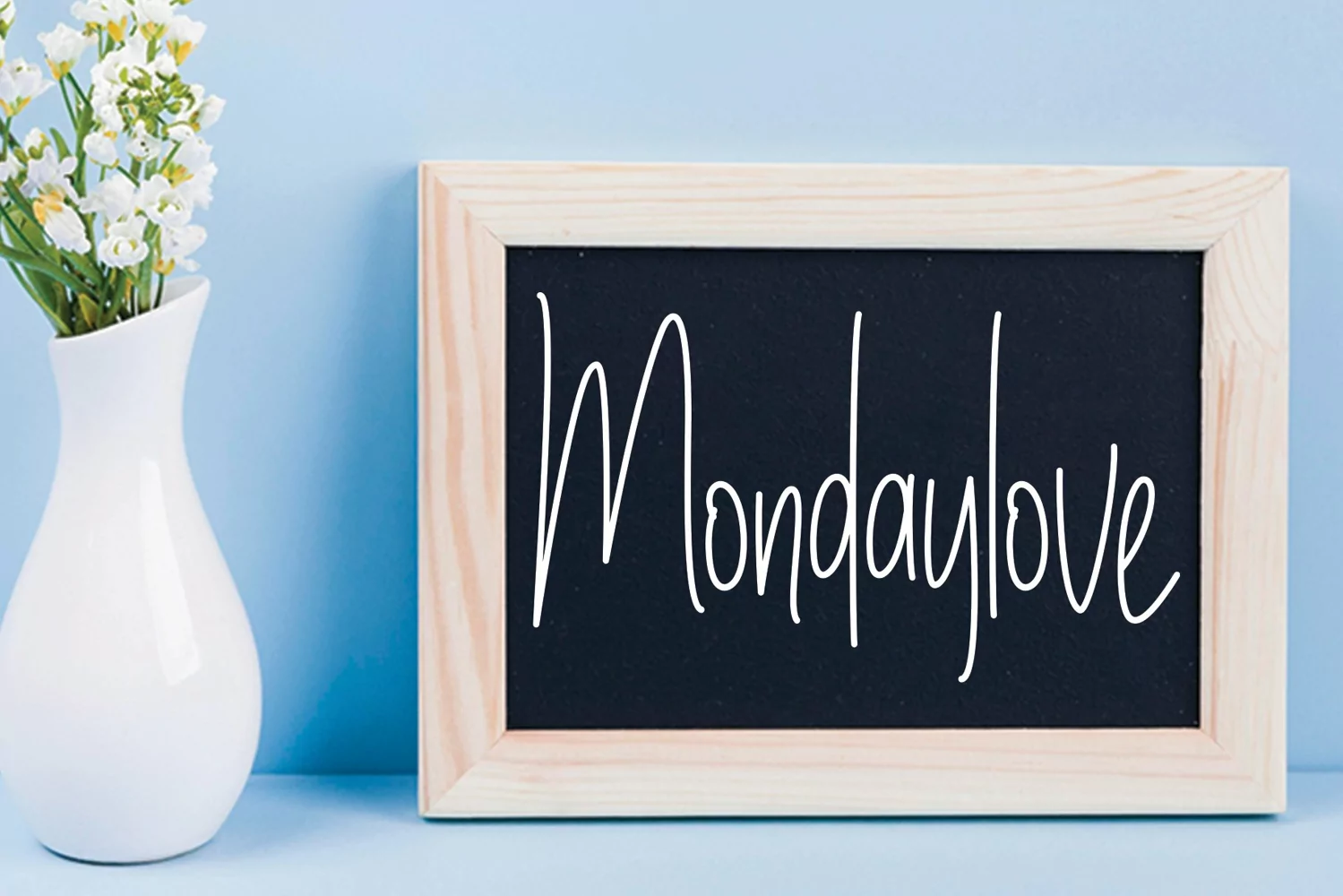
latest style lettering is perfect for wall hangings, wedding invitations, social media post logos,
advertising, product packaging, product design, label, photography, watermark, invitation, stationery,
and any project that requires taste handwriting.